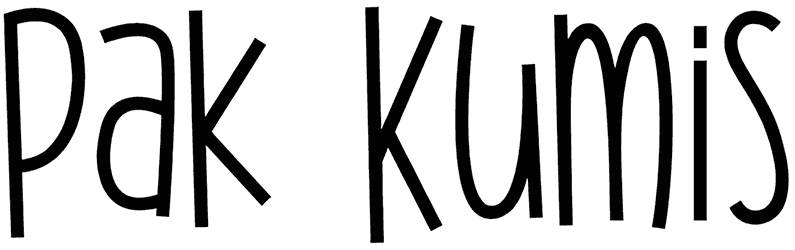
Pak Kumis Font
Pak Kumis is a cartoon font that has the real potential to bring each of your creative designs such as educational brochures, animation posters, video game banners, and billboards to the highest level. This doodle font would evoke the feeling of clutter, disorder, love, and simplicity in the audience’s minds.